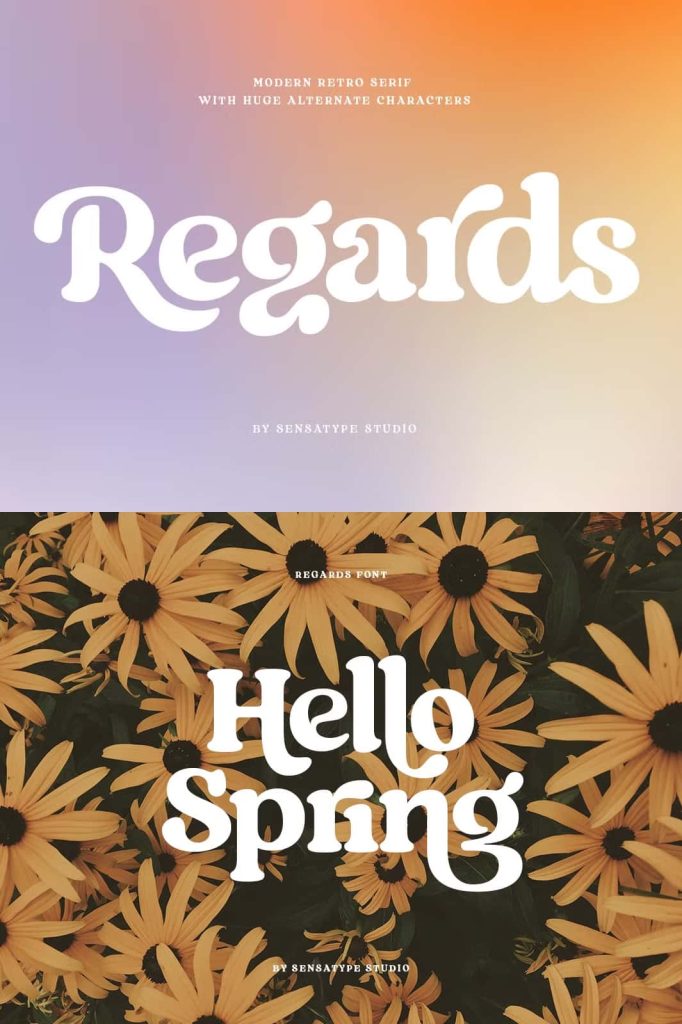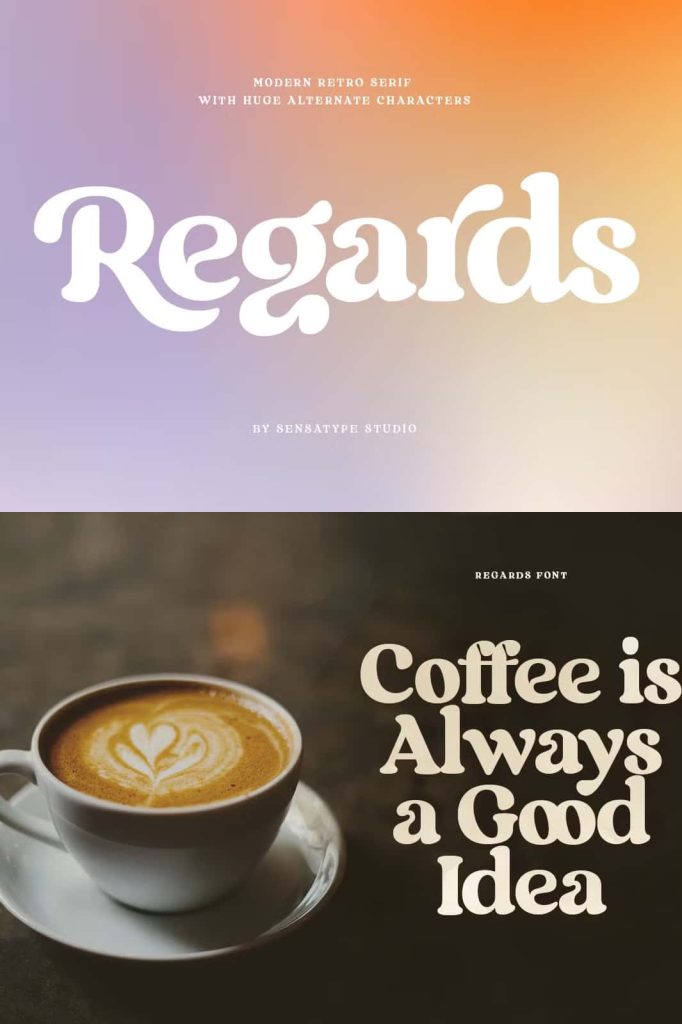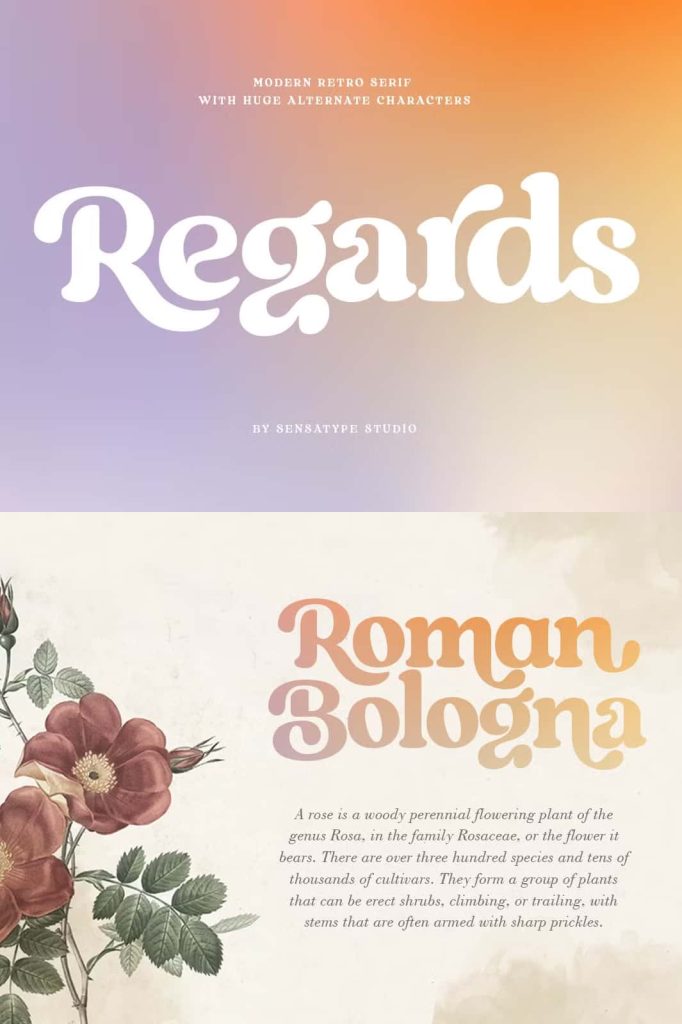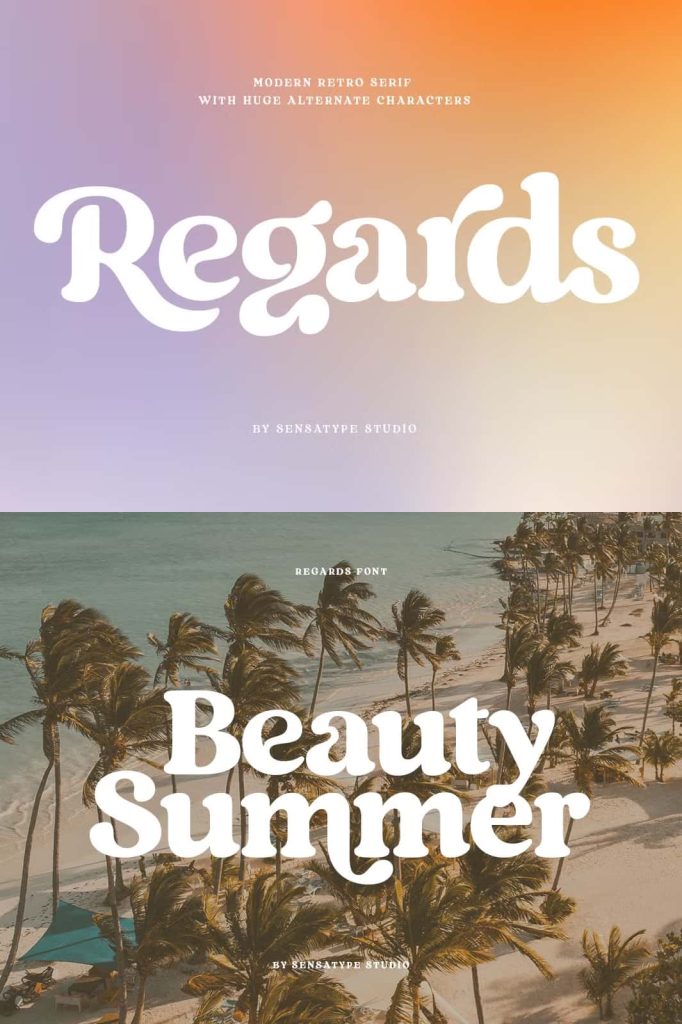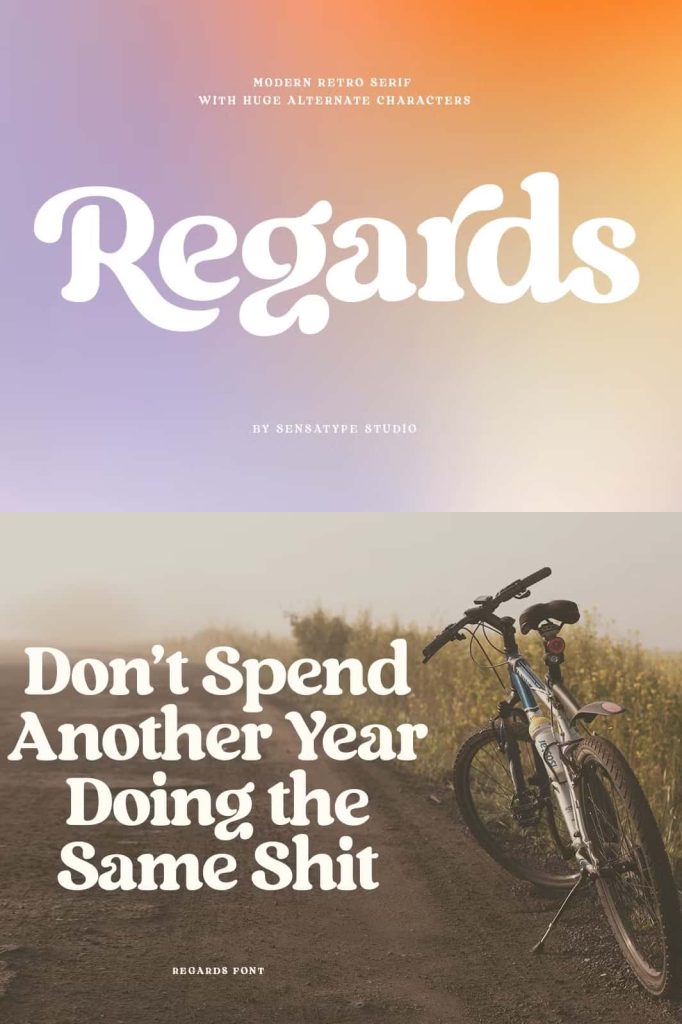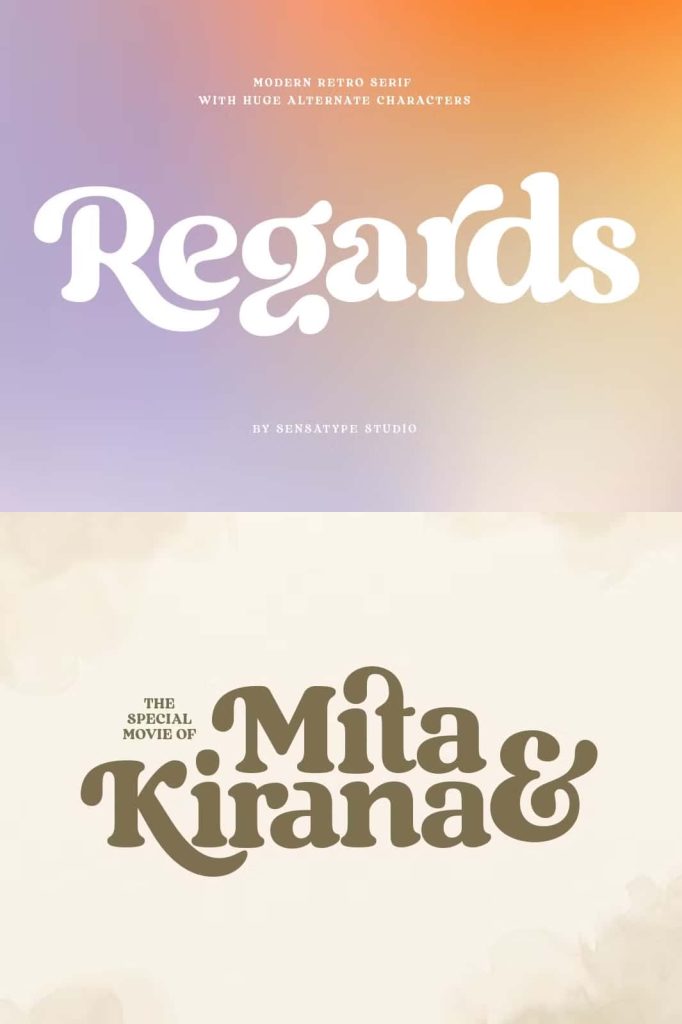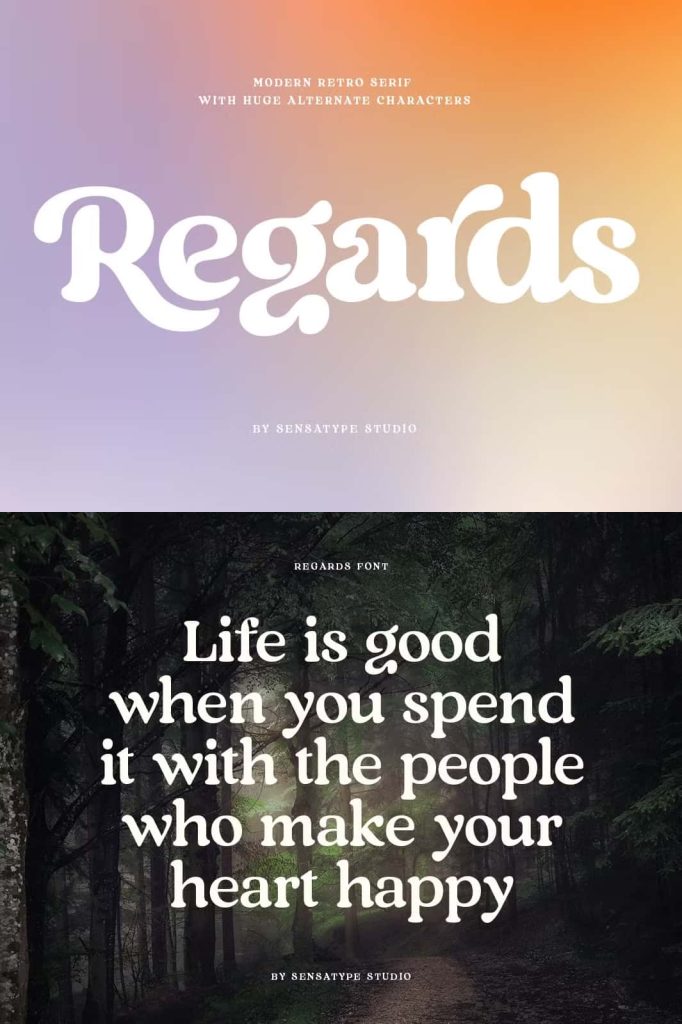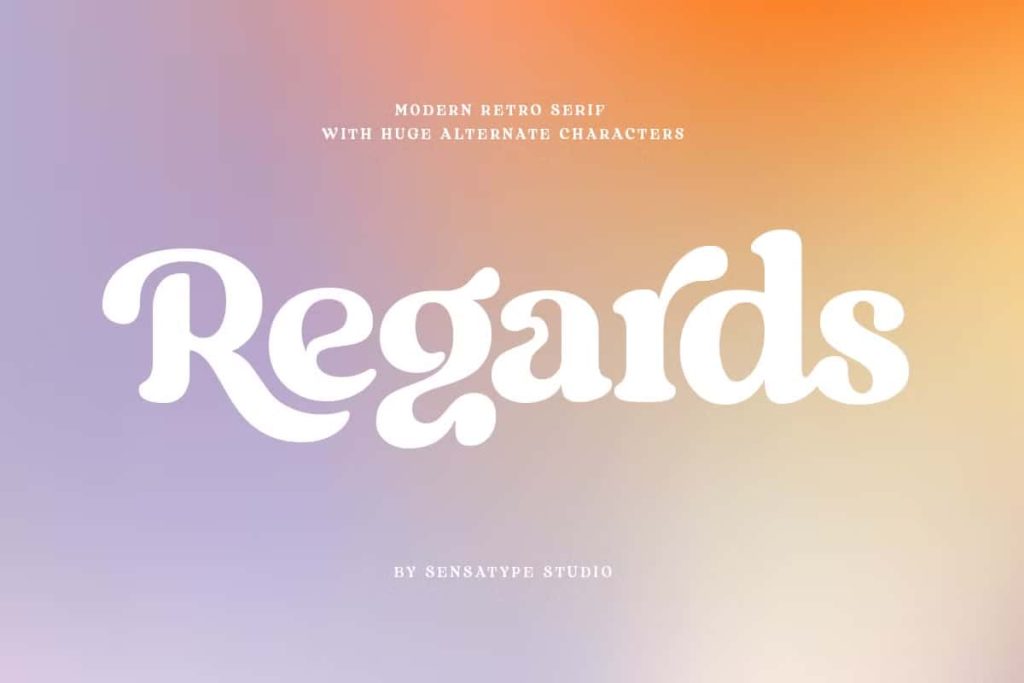
Regards – Modern Retro Serif
Regards Font – A Vintage Modern Retro Serif for Timeless and Creative Designs
Regards Font is a captivating blend of vintage charm and modern sophistication. Designed as a well-balanced retro serif, this font offers a perfect combination of elegance, playfulness, and versatility. With its stylish letterforms and graceful curves, Regards Font captures the essence of timeless typography, making it an excellent choice for designers who seek to create projects that are both classic and contemporary. Whether for logos, branding, invitations, or editorial layouts, this typeface brings character and beauty to every design it touches.
Discover the Allure of Vintage Modern Typography
The beauty of Regards Font lies in its ability to merge nostalgic retro aesthetics with a refined modern touch. Every letterform has been thoughtfully crafted to balance contrast, proportion, and style. Its elegant serif structure and moderate contrast make it ideal for both display and text applications. From bold headlines to delicate typography details, Regards Font adapts seamlessly to various creative uses while maintaining high readability and visual harmony.
This typeface evokes a sense of classic design while staying relevant in modern creative contexts. Its unique blend of old and new allows designers to experiment freely and produce compositions that stand out with sophistication and charm.
100+ Alternates for Endless Creative Possibilities
One of the defining features of Regards Font is its extensive collection of over 100 stylistic alternates. These alternates allow you to customize your typography effortlessly—mix and match characters to form beautiful curves, elegant ligatures, and intricate shapes in just seconds. This feature empowers designers to create a completely unique typographic identity without the need for extensive manual adjustments.
By experimenting with different letter combinations, you can craft distinctive logos, headers, or titles that reflect your brand’s personality. Whether you aim for a luxurious vintage appeal or a modern editorial tone, Regards Font provides all the tools you need to bring your creative ideas to life.
Perfect for a Wide Range of Design Projects
Regards Font is a versatile typeface that works beautifully across many design categories. Its moderate contrast and excellent legibility make it suitable for both print and digital media. From branding projects to decorative wedding invitations, this font maintains its elegance and readability in every context. It’s particularly popular among designers who want to add a sophisticated retro vibe to their projects without sacrificing clarity or modern aesthetics.
Ideal Applications for Regards Font
The versatility of Regards Font allows it to enhance a wide array of creative projects, including:
• Branding and Logo Design: Create timeless brand identities that radiate vintage sophistication.
• Wedding Invitations: Add elegance and romance with beautifully curved letterforms and stylish alternates.
• Social Media Posts: Craft eye-catching and professional designs that attract attention online.
• Advertisements and Posters: Highlight messages with bold retro-modern aesthetics.
• Product Packaging: Enhance labels and boxes with a classic and luxurious look.
• Stationery and Print Design: Give documents, cards, and brochures a polished, creative edge.
• Photography Watermarks: Add signature style to your photos with elegant typography.
High Legibility and Professional Appeal
Despite its artistic curves and decorative qualities, Regards Font remains highly legible. Its balanced proportions and clean structure ensure that text remains clear and visually appealing, even in smaller sizes. This makes it not only a beautiful display font but also a practical one for various professional uses. Whether you’re creating minimalist branding or detailed graphic layouts, Regards Font provides both style and substance.
Why Designers Love Regards Font
Designers value Regards Font for its ability to transform ordinary text into something extraordinary. Its distinctive retro-modern look captures attention immediately while maintaining an elegant flow. The inclusion of over 100 alternates makes it easy to personalize and refine every project, from minimalist logos to artistic magazine titles. The typeface’s adaptability ensures that it complements diverse themes—luxurious, playful, romantic, or bold.
Its premium design quality also guarantees consistent results across various mediums, from high-resolution print to digital displays, ensuring that your creative vision remains clear and impactful.
Conclusion: Elevate Your Designs with Regards Font
Regards Font is more than just a serif typeface—it’s a creative toolkit that brings retro charm and modern functionality together. With its elegant structure, 100+ alternates, and strong visual presence, it helps you craft memorable designs that convey professionalism and artistic flair. Whether you’re working on a branding project, an editorial layout, or a personal design venture, this font ensures every word makes a lasting impression.
Bring your creative vision to life with Regards Font—a perfect blend of vintage inspiration and modern design excellence.